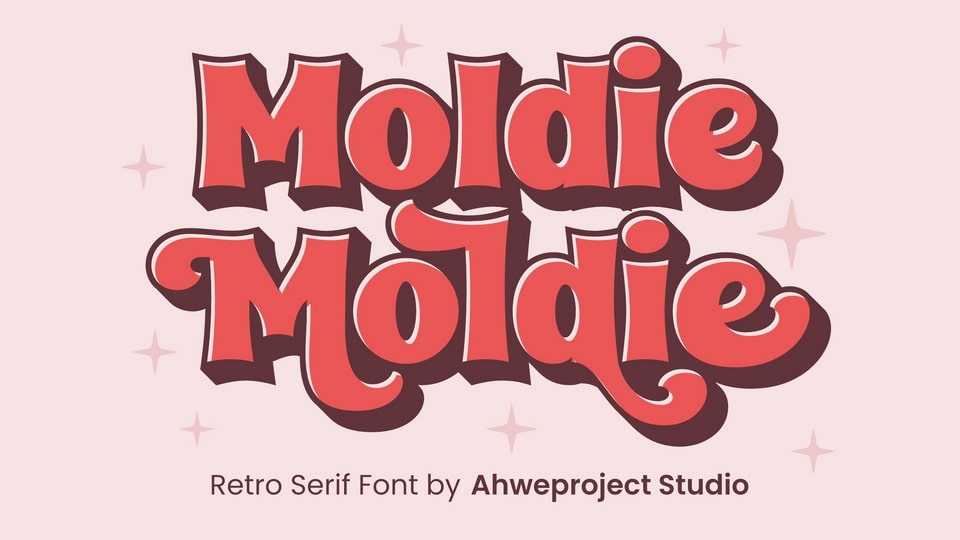
Download Moldie font, a playful and bold retro serif typeface that brings a nostalgic yet fun vibe to any design with its thick, rounded edges and dynamic curves.